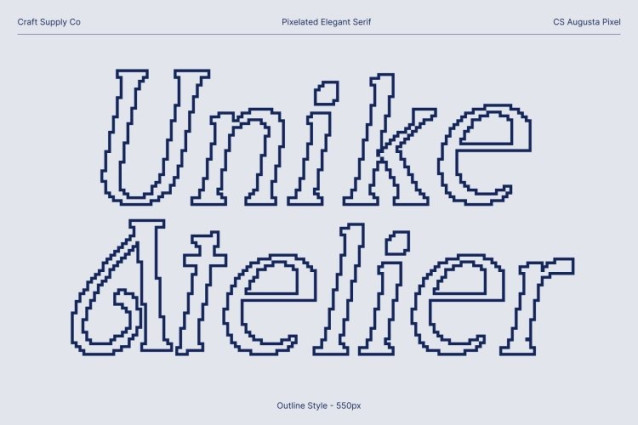
CS Augusta Pixel Font
CS Augusta Pixel Font This font is an elegant serif font defined by smooth, flowing curves and refined proportions, now enhanced with distinctive pixel styling. This fusion creates a unique visual identity where classic luxury meets digital nostalgia. The graceful letterforms maintain a sophisticated, feminine presence, while the pixel details introduce an old digital 8-bit nuance that feels both retro and modern.
Refined Readability for Editorial and Book Design
Designed with balance and clarity in mind, this font performs beautifully in books, editorials, and magazine layouts. Its elegant serifs support comfortable reading, while the pixel accents add subtle texture and visual interest. This combination allows long-form content to feel premium, artistic, and refreshingly distinctive without sacrificing legibility.
Perfect for Feminine Branding and Stylish Packaging
The font’s soft elegance makes it ideal for beauty brands, fashion labels, lifestyle products, and luxury packaging. The pixel style transforms traditional femininity into something more contemporary and memorable, blending charm with a modern digital edge.
Timeless Grace with Retro-Digital Appeal
This font bridges classic serif sophistication with retro digital aesthetics. Its 8-bit pixel influence evokes vintage screens and early digital typography, while its refined structure keeps it modern and stylish. This makes the font a powerful choice for designers seeking elegance with a nostalgic, eye-catching twist across both print and digital designs.